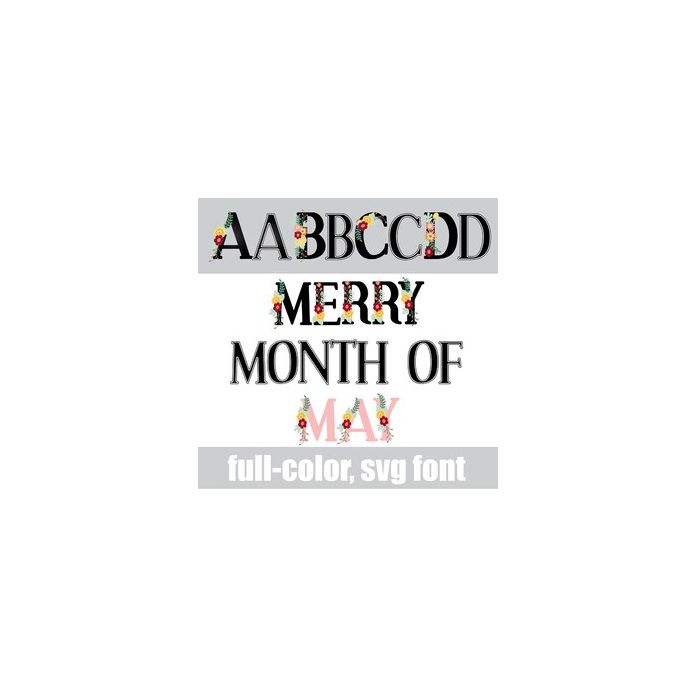
This full-color serif font features beautiful florals on the uppercase. There is an alt case w/ additional colors you can access through your system or Silhouette's glyph map.